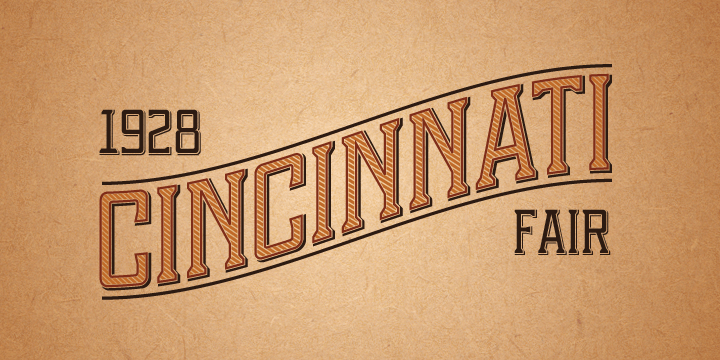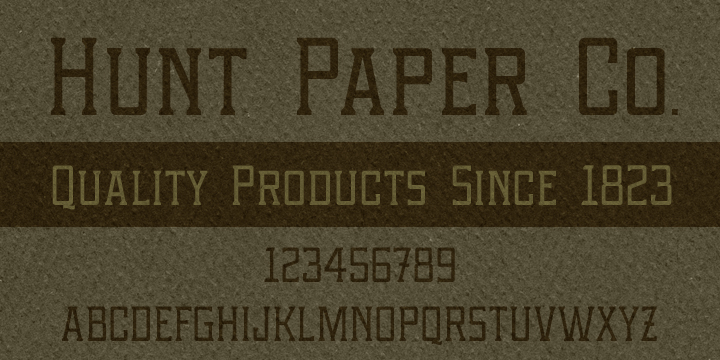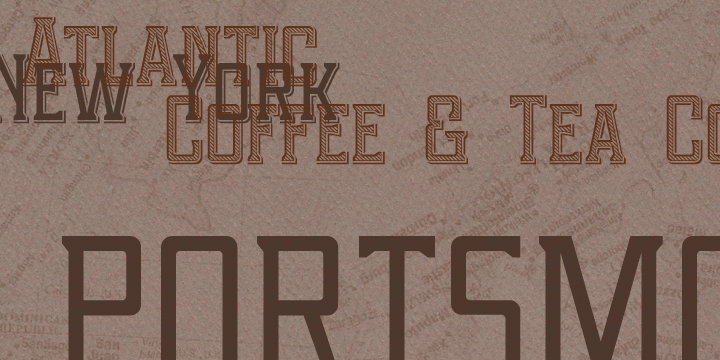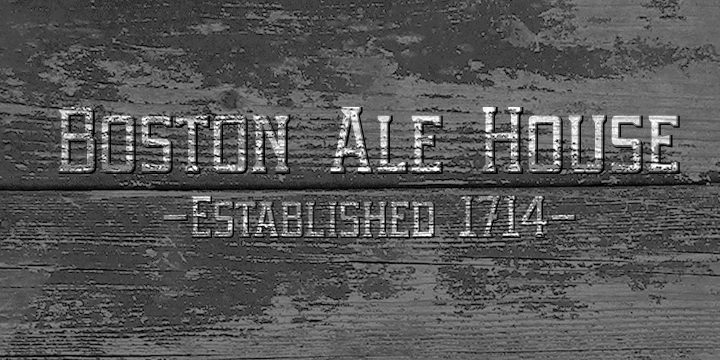
Portsmouth
Portsmouth is a strong, sturdy typeface with historical character. Its inspiration comes from the height and strength of the wooden tall ships that sailed into port in their day. With caps and small caps, this typeface is great for headlines or subheads for design projects that need a historical or retro feel, such as from the 1940s and earlier. Five different styles that can be layered allow for different colored drop shadows, outlines and fill for even more customization.